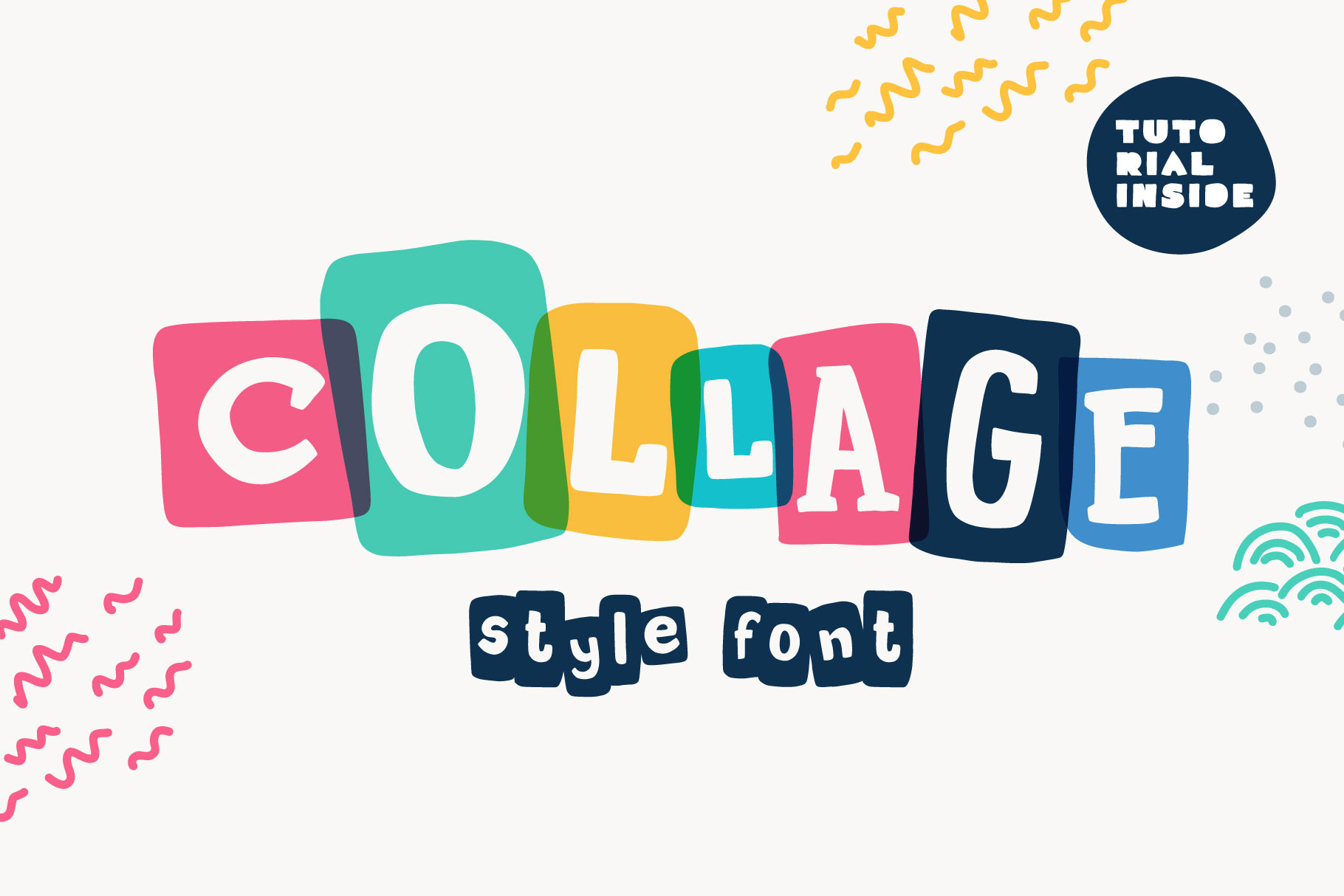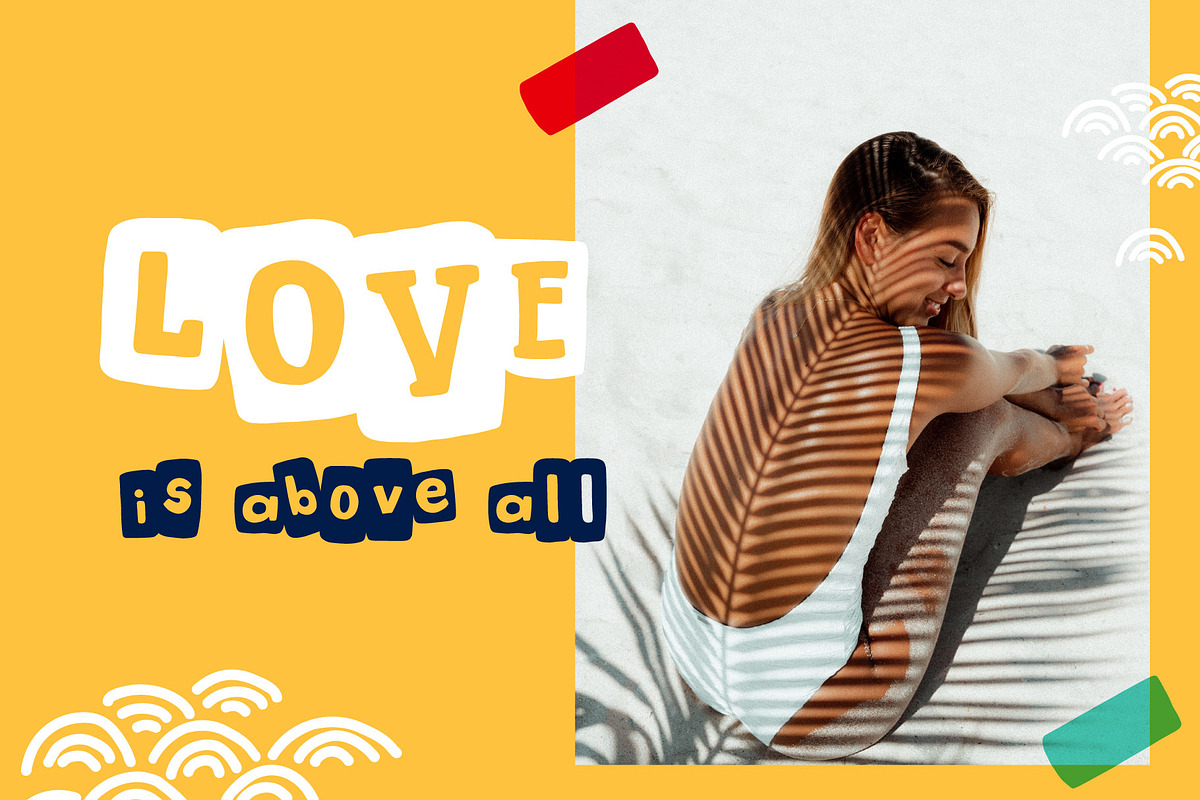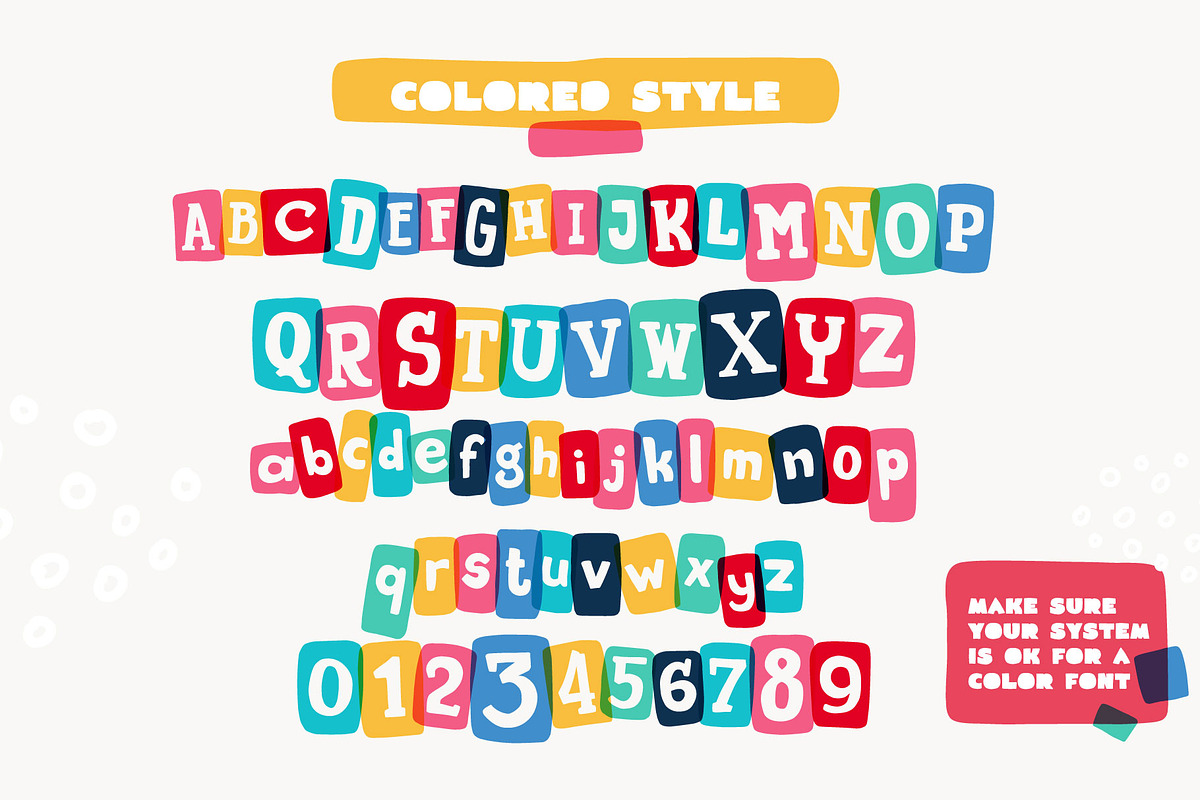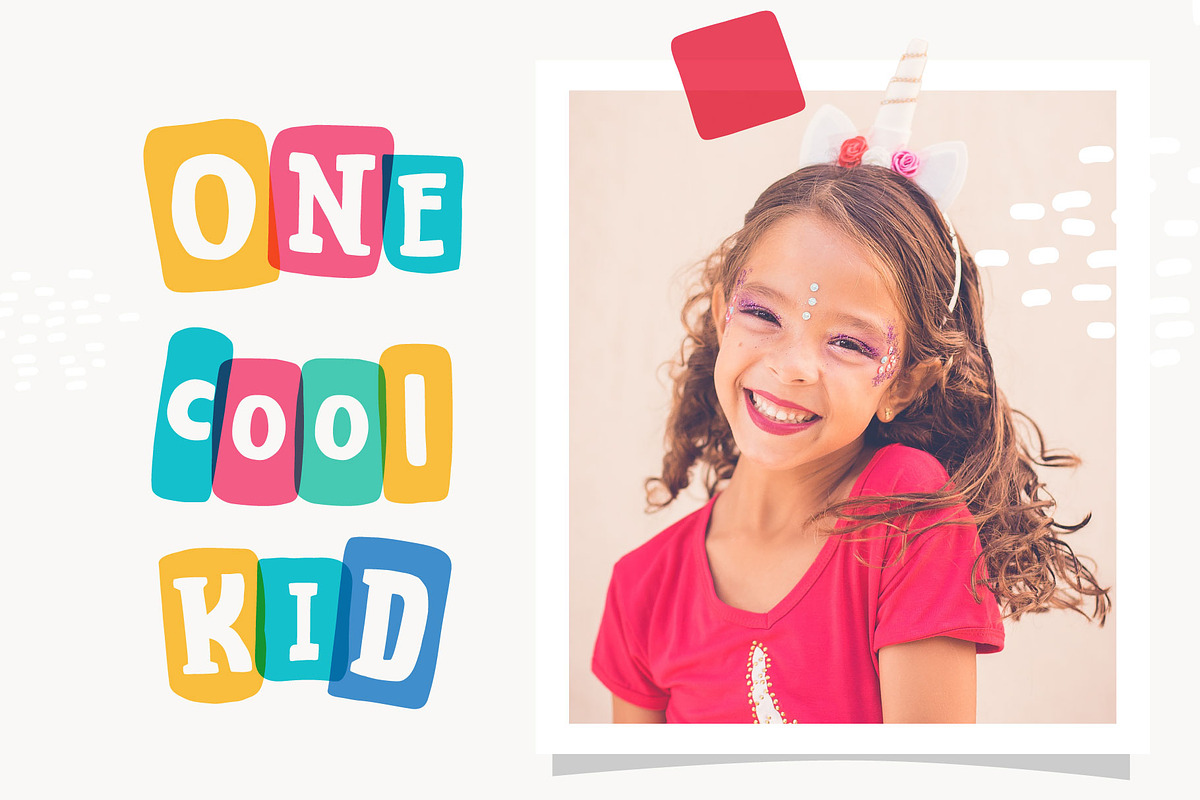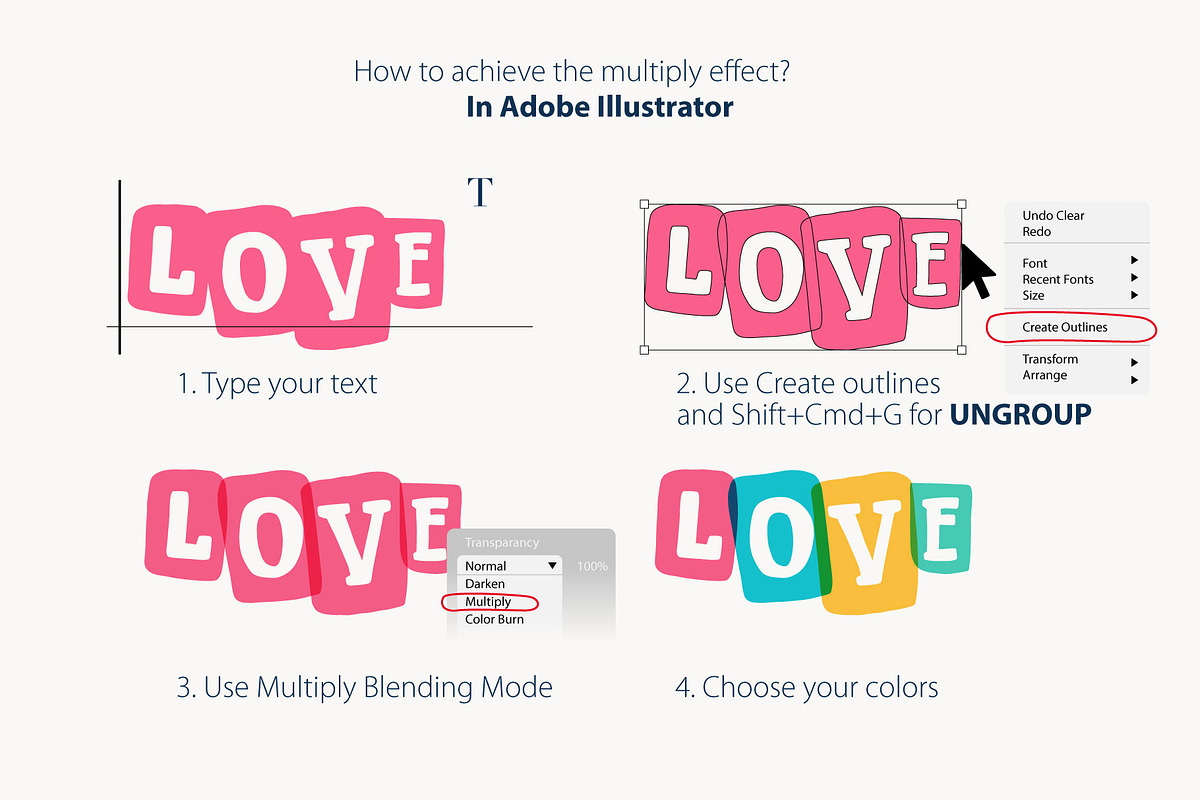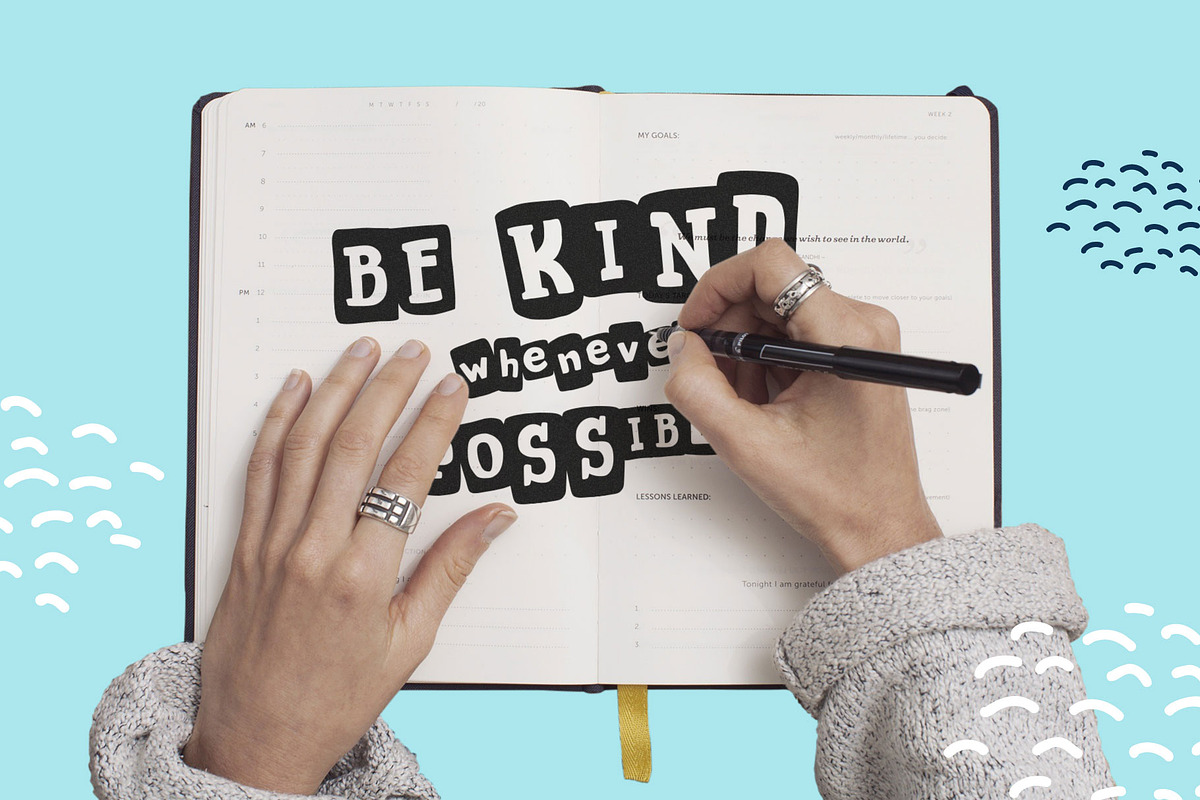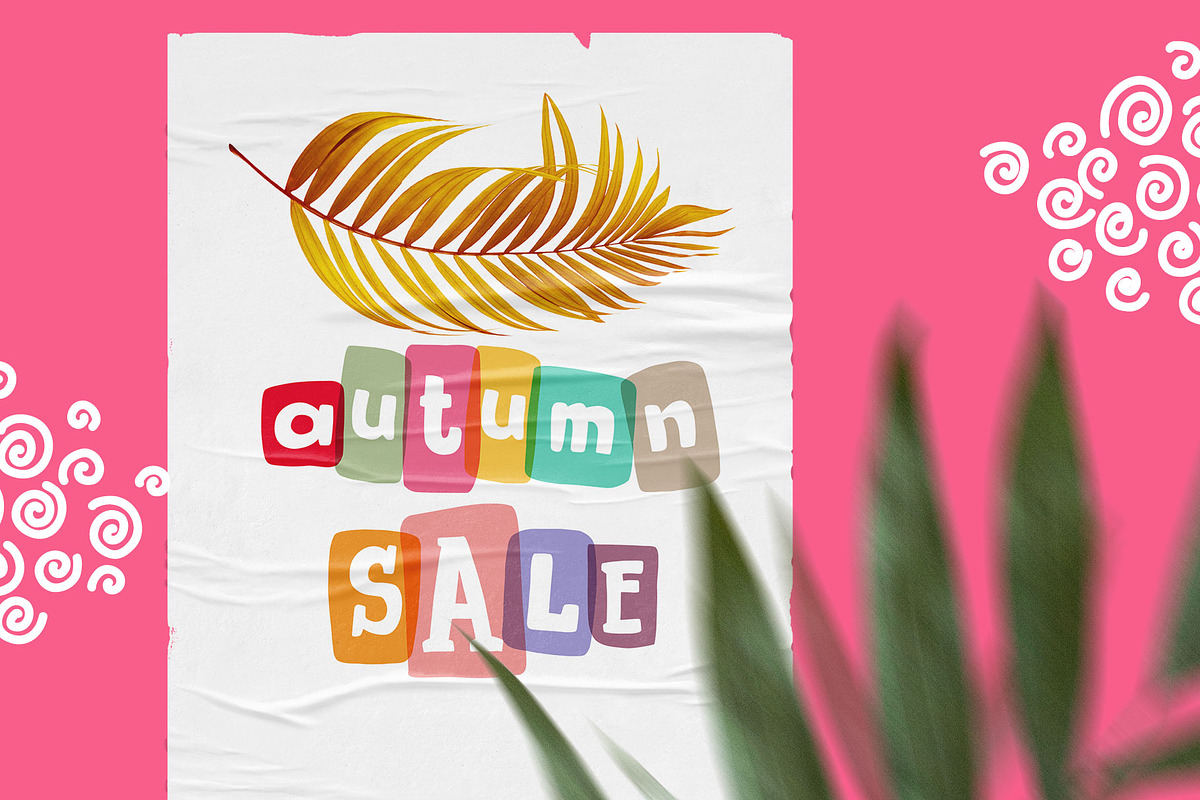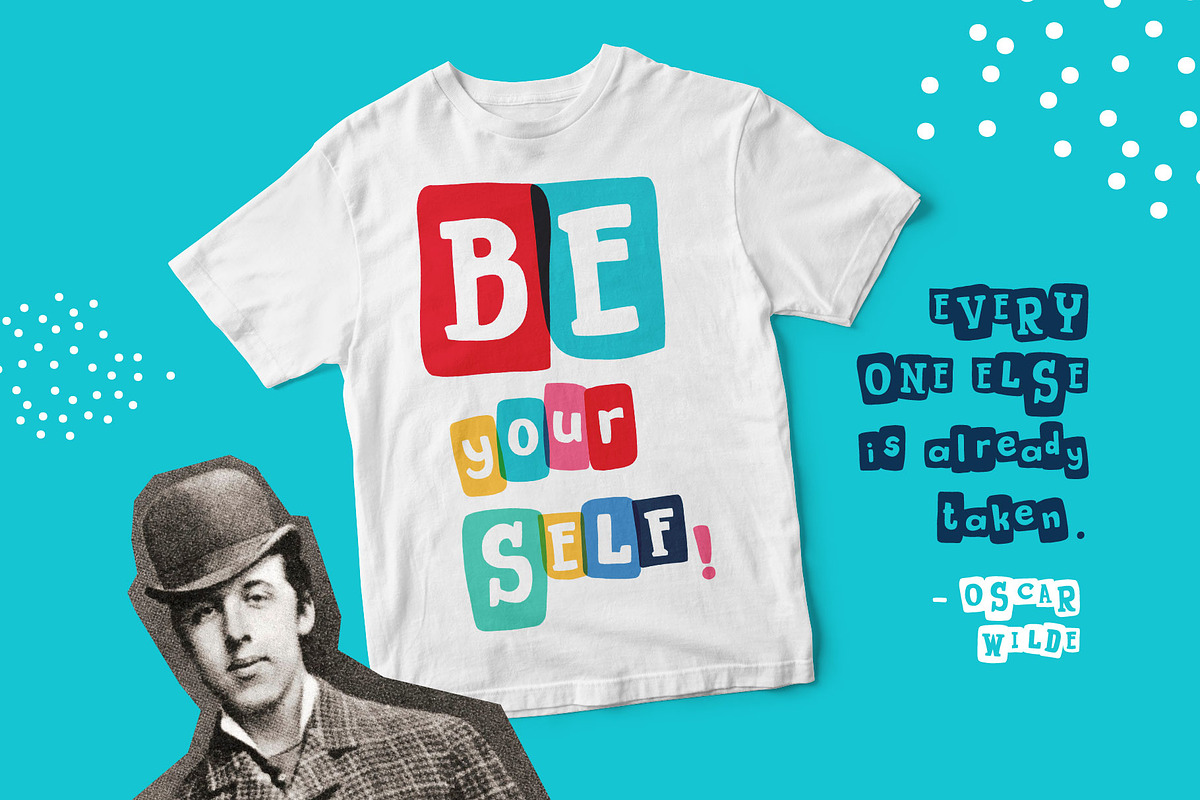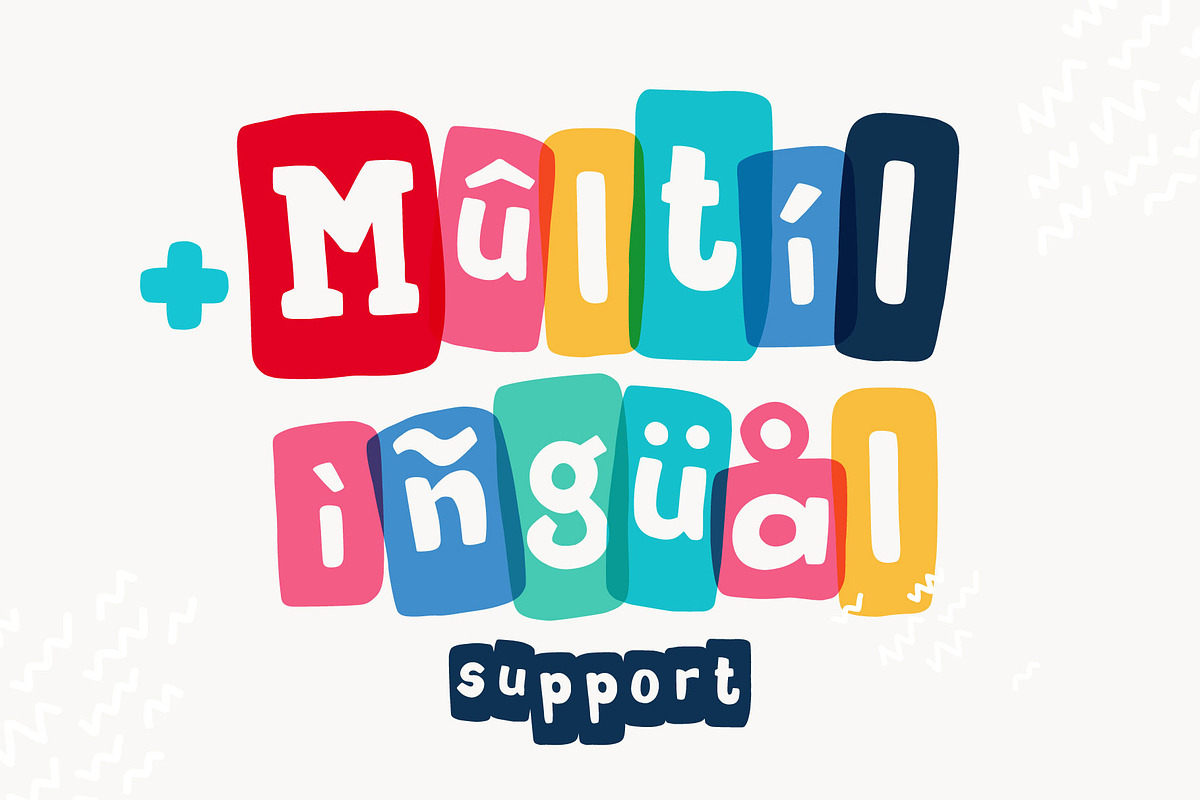
New Collage colored font
Do you need cute modern lettering, sale stickers, or blog headline?
NewCollage is a collage and typewriter-inspired font with bold slab serif letters in frames. I've made a Colored style font for cool lettering with multiply effects (please read a tutorial how to do it in Adobe Illustrator)
- Regular and Colored style font, please find below how to use it!
- Numbers, symbols, and multilingual support